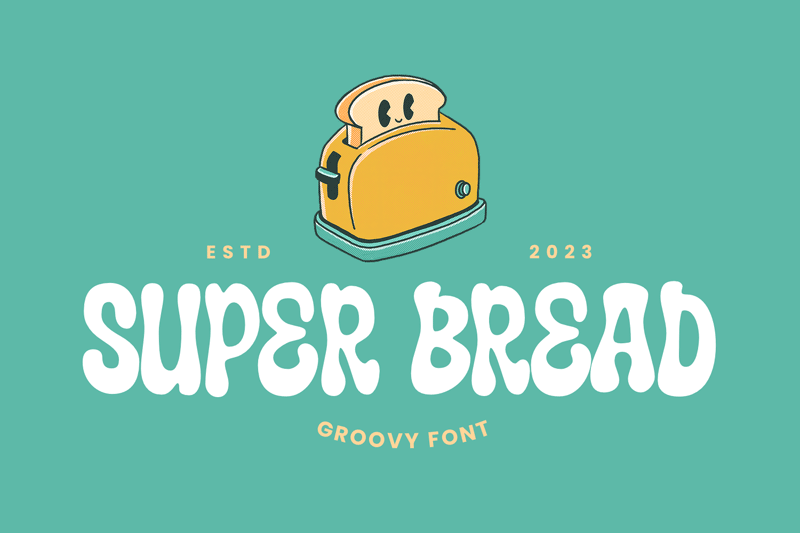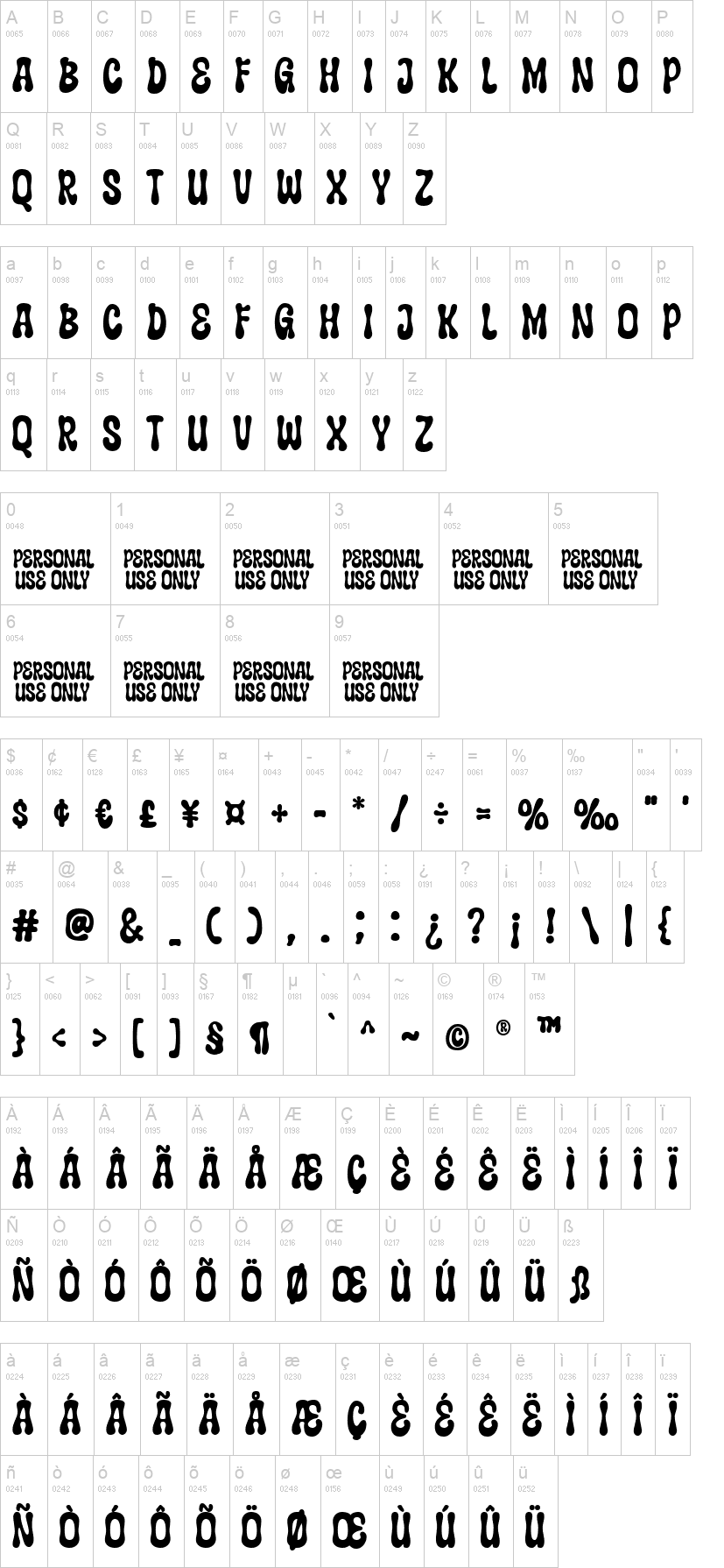
Super Bread is a fun and playful font with a groovy, retro vibe. Its rounded letters and bubbly curves give it a sense of whimsy and lightheartedness, while its thick and thin strokes add a touch of excitement and energy. This makes it a great choice for a variety of projects, such as childrens books, comics, advertising, posters, menus, and packaging.